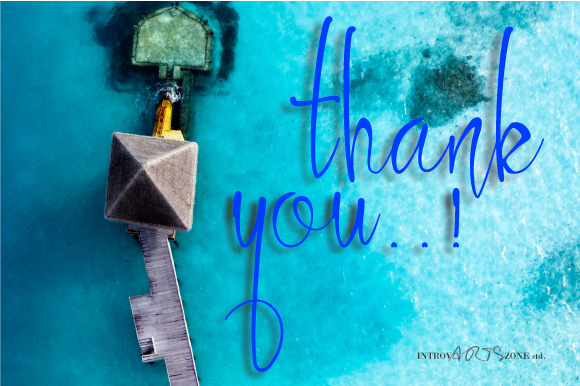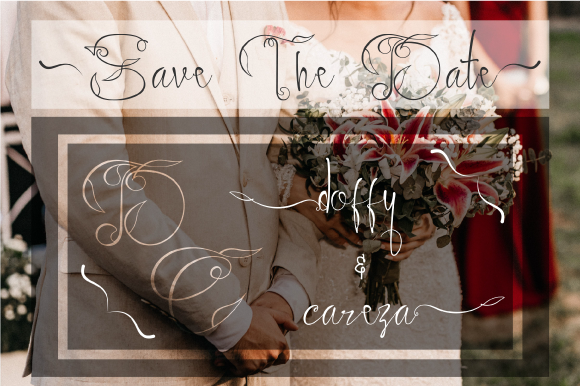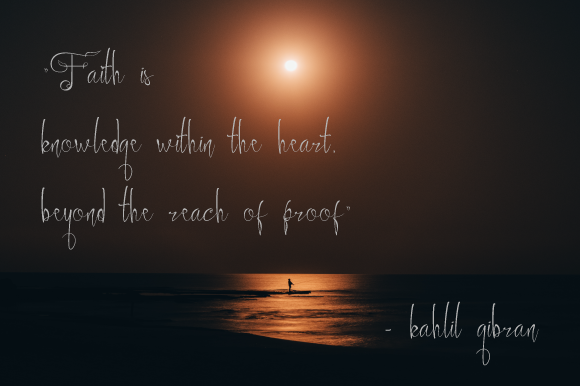
Ayuningtyas Font
About Ayuningtyas Font
Ayuningtyas is a stunning and gorgeous script font that will turn any design idea into a true standout. Get inspired by its versatile and elegant style!